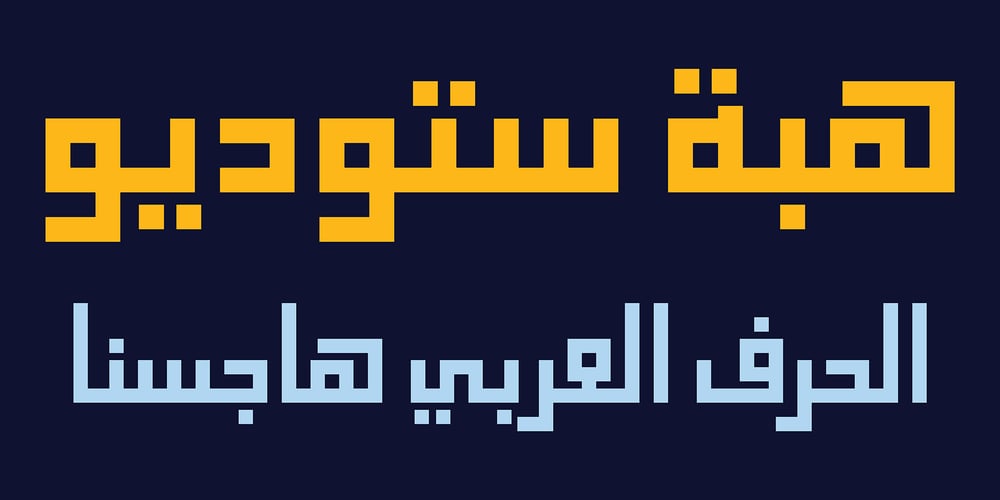
Hasan Noor Font Family was designed by Hasan Abu Afash and published by Hiba Studio. Hasan Noor contains 1 styles and family package options. Hasan Noor is an Arabic display typeface, ideal for titles and graphic projects. The font is based on the simple lines of Square Kufi calligraphy. It supports Arabic, Persian, and Urdu. In November 2008, Hasan Noor was upgraded in collaboration with award-winning Arabic type designer Mirjam Somers to the DecoType font format for use in WinSoft Tasmeem, which was previously bundled with InDesign CS4.